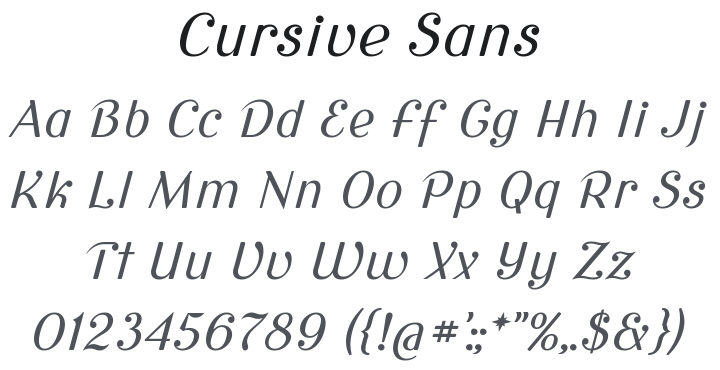
Cursive Sans Font Family
by Wojciech Kalinowski
Cursive Sans Font Family
About Cursive Sans
This is another of my old fonts used to inscriptions in stone. I created the CursiveSerif font about 14-15 years ago (like my other old fonts). Initially the font was only serif. I decided to create two versions - Sans and Serif. CursiveSerif is the first part of two fonts family. The second part is CursiveSans.